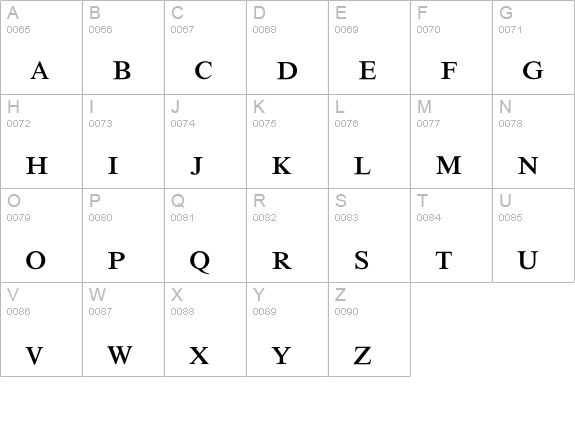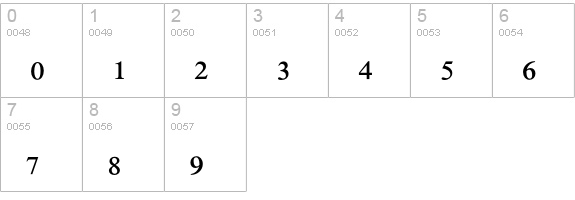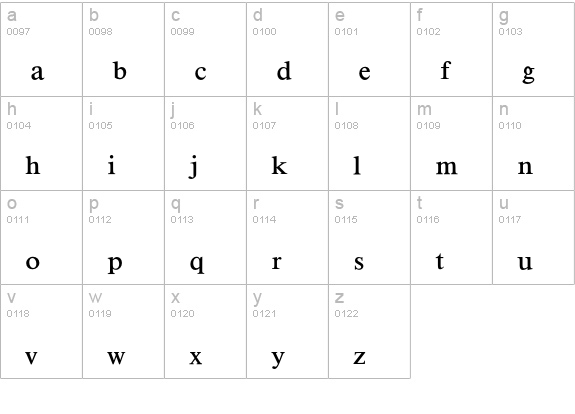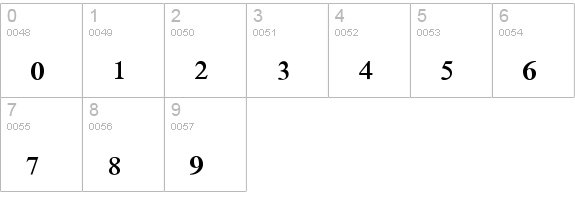
MathTechnicalP14 Font Details
MathTechnicalP14 is a stunning font that combines mathematical symbols and technical elements to create a visually captivating design. This font is perfect for projects that require a mathematical or technical touch, such as academic papers, scientific presentations, or engineering reports. With its clean lines and precise shapes, MathTechnicalP14 provides a professional and polished look to any text. The characters are meticulously crafted to ensure optimal legibility, even at smaller sizes. One of the greatest advantages of MathTechnicalP14 is that it is freely available to download at FontsMarket.com. This means that you can easily access this exceptional font without any cost, making it an ideal choice for those who want to add a sophisticated touch to their work without having to break the bank. Whether you are a student, a professional, or simply someone who appreciates the beauty of mathematics and technicality, MathTechnicalP14 is the perfect font for you. Its versatility and elegance will undoubtedly elevate your projects and leave a lasting impression on your audience. So why wait? Head over to FontsMarket.com and download MathTechnicalP14 for free today!